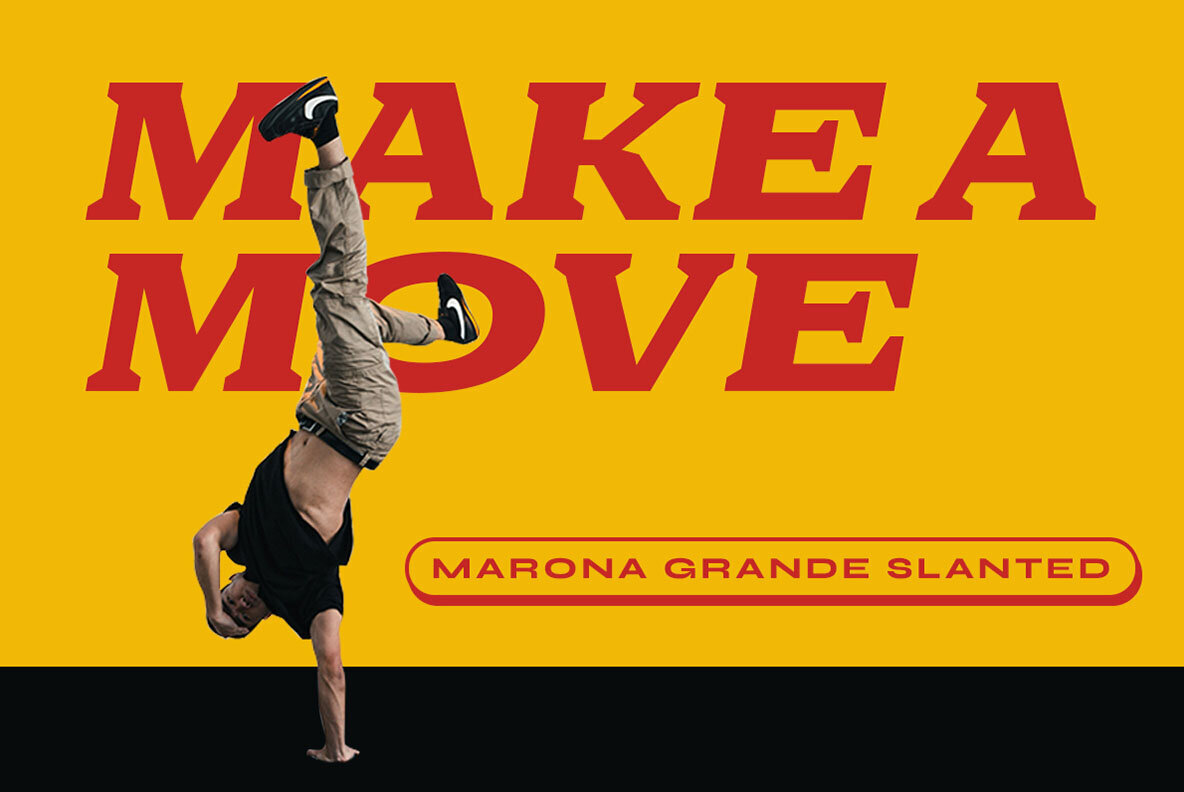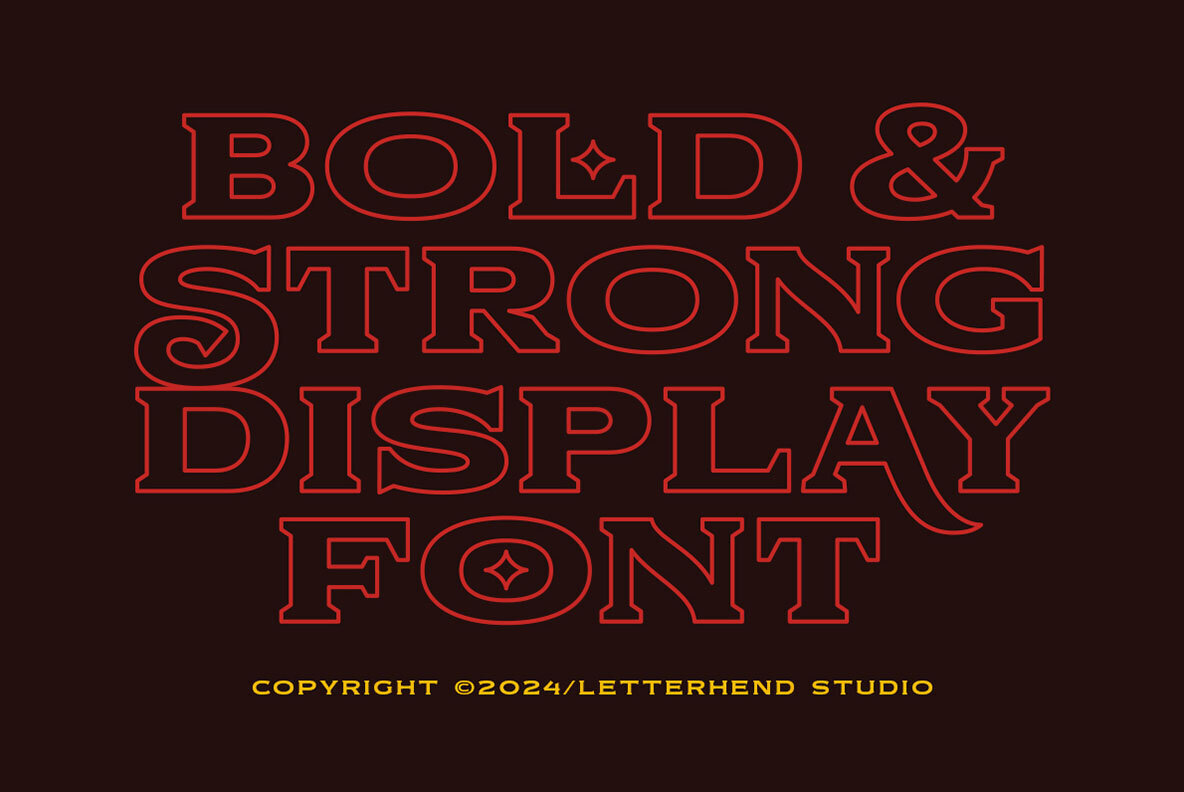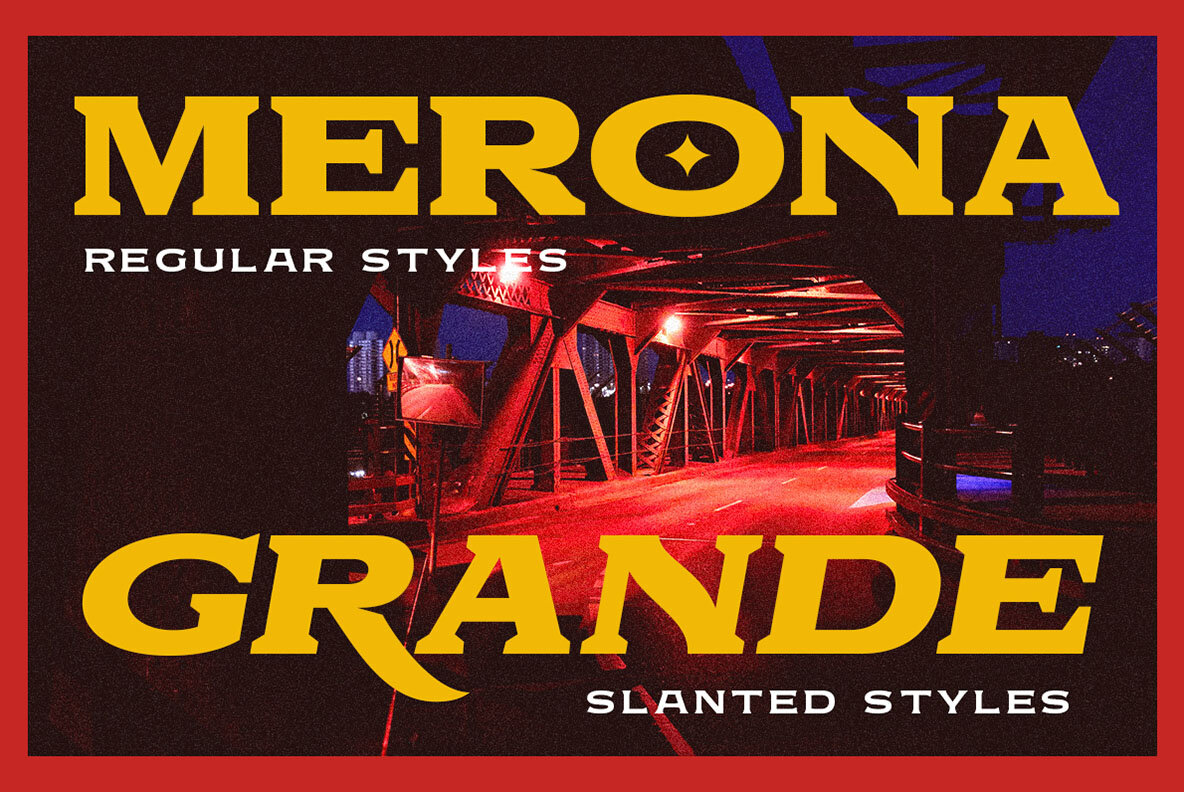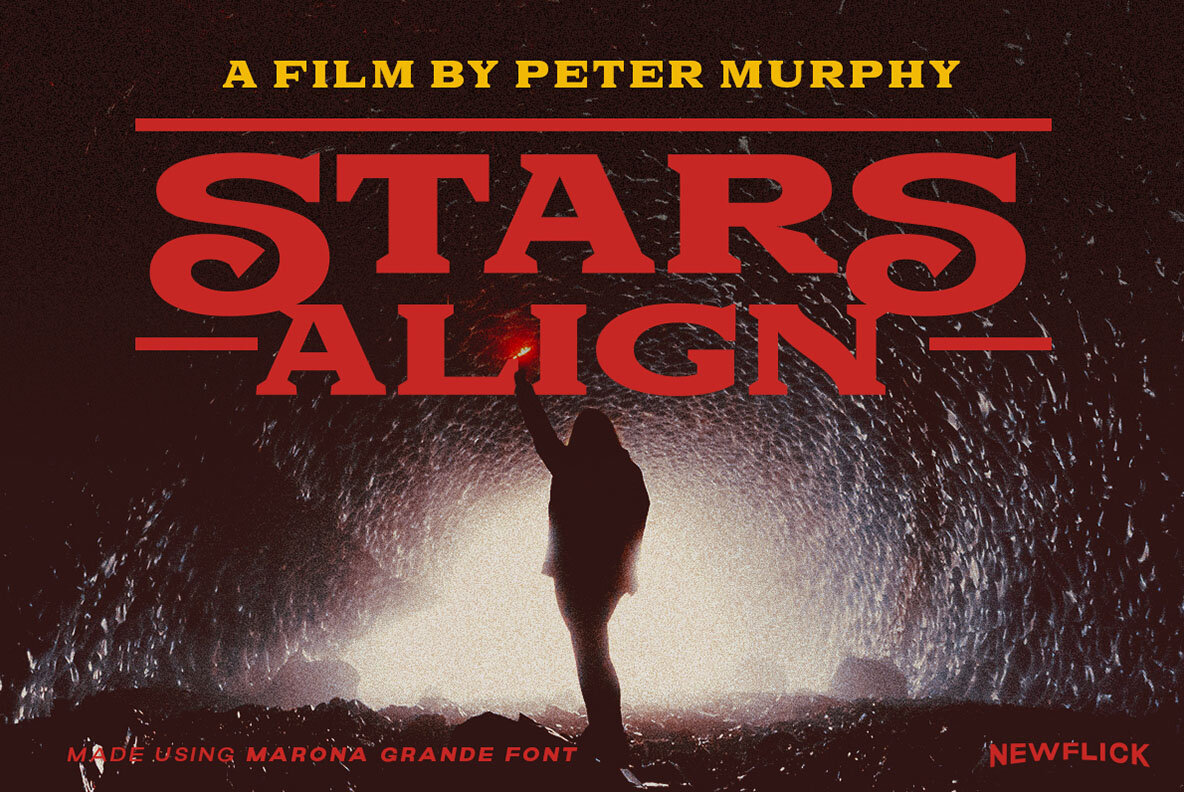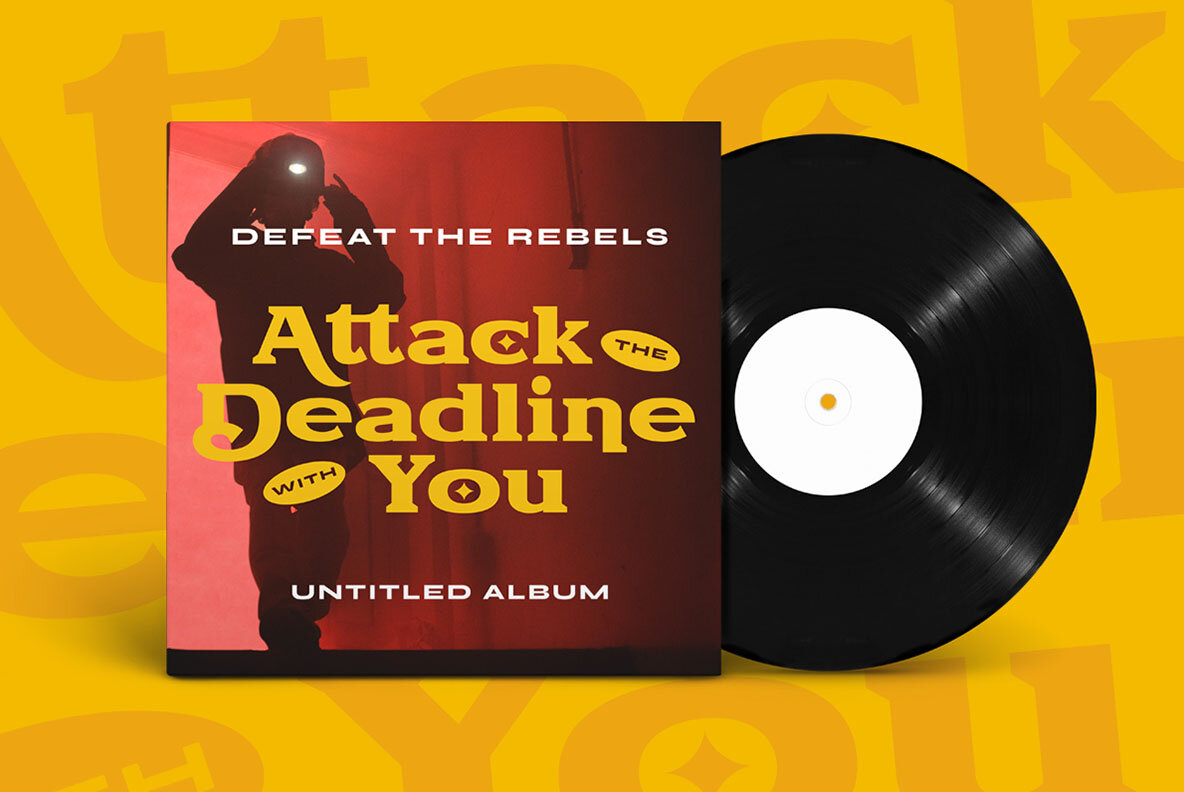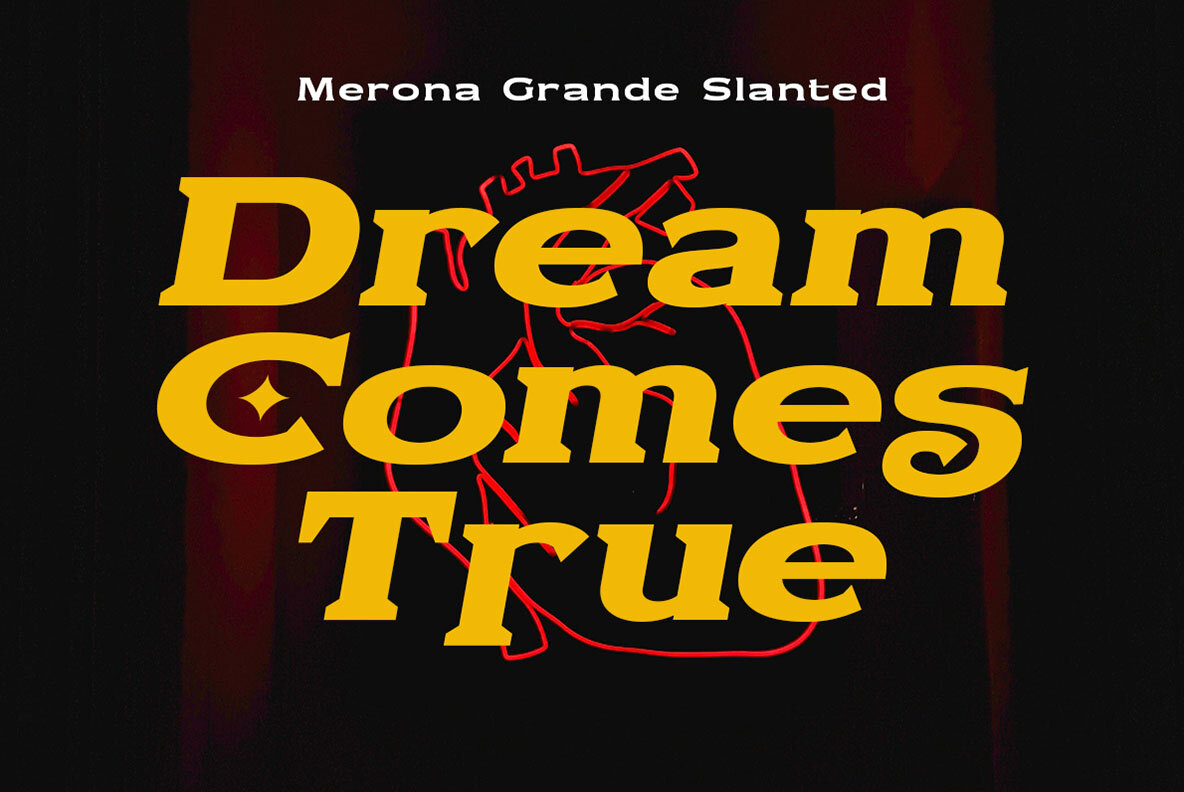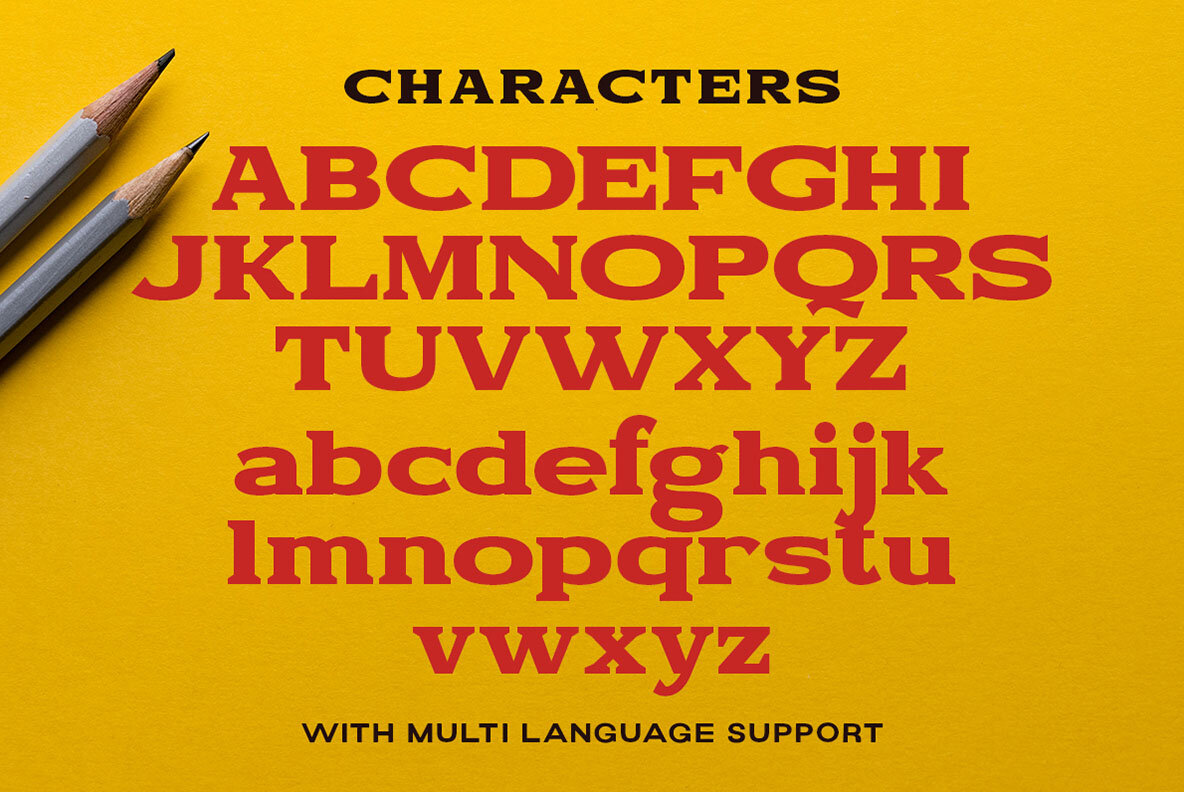
Marona Grande Font
Marona Grande is a brand new display font. You can play around with alternates character. This font perfectly made to be applied especially in logo, and the other various formal forms such as invitations, labels, logos, magazines, books, greeting / wedding cards, packaging, fashion, make up, stationery, novels, labels or any type of advertising purpose.